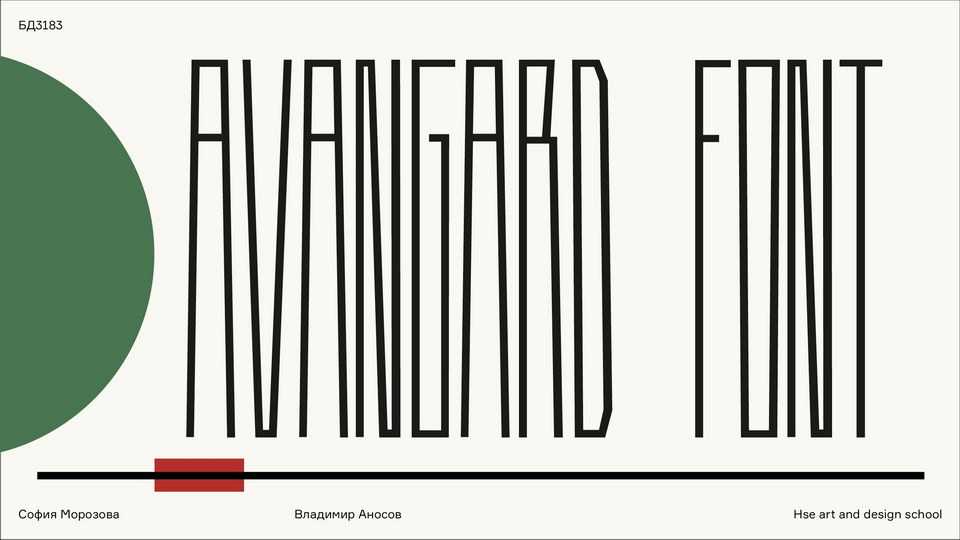
Download Avangard font, a sans serif typeface with a long, narrow character and regular style, inspired by the Russian avant-garde.
Designer: Sofia Morozova